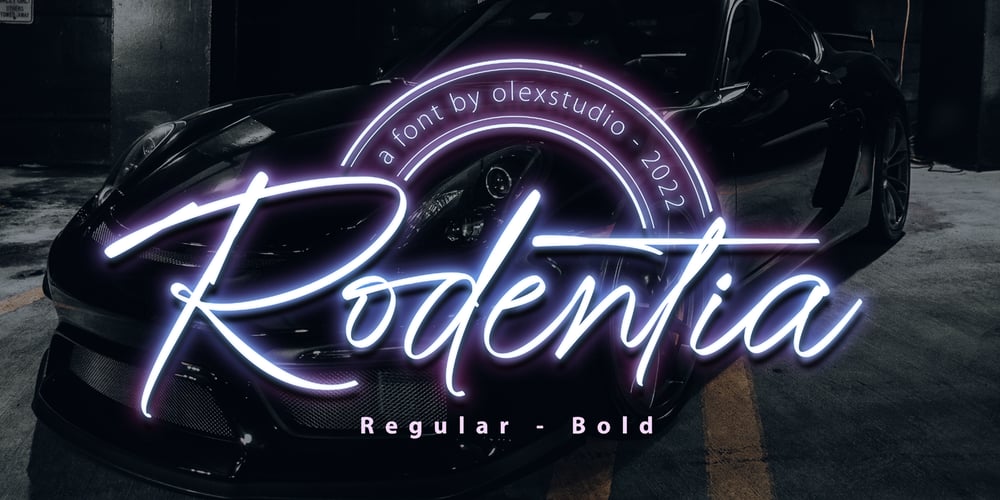
Rodentia Font Family was designed by Firman Syah and published by Olexstudio. Rodentia contains 2 styles and family package options. RODENTIA – Handwritten Brush Script Font will look gorgeous on all your designs, invitation, poster design, book design, branding materials, logo’s, and all project design other.RODENTIA – Handwritten Font contains standard characters, Lowercase, alternates, Uppercase, numbers, punctuation, ligatures and international glyphs.